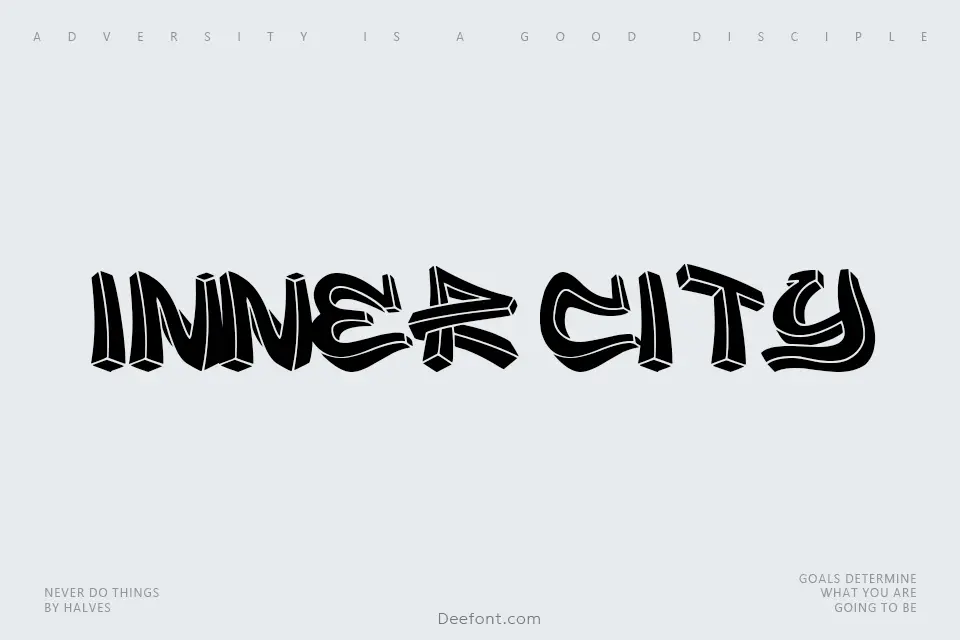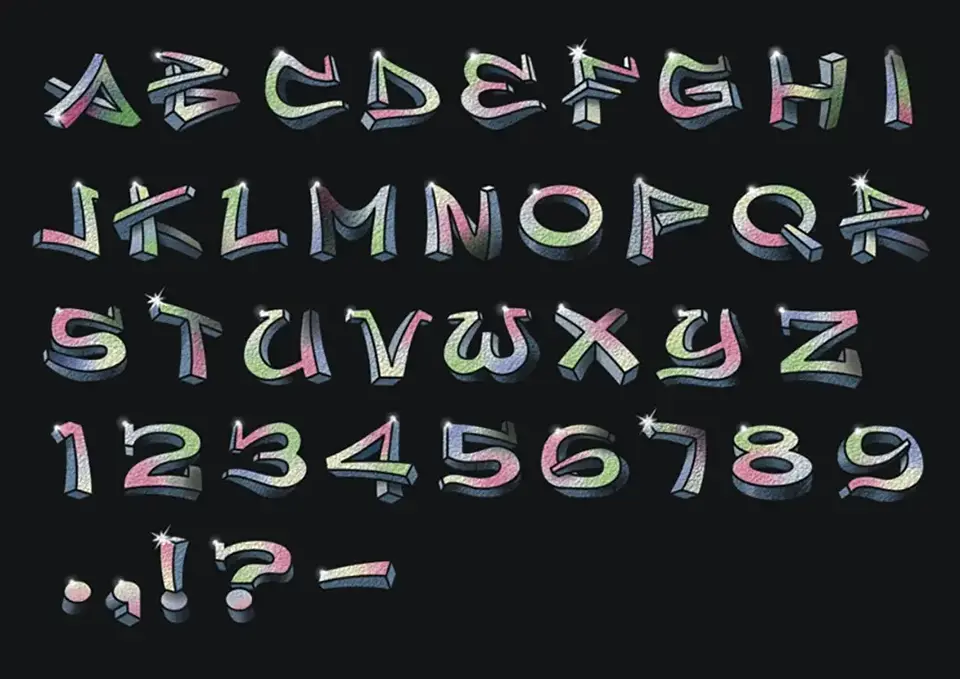
Inner City Font
The Inner City font is a bold, urban typeface featuring a striking 3D graffiti-inspired style with dynamic depth and movement. Characterized by sharp angles and thick strokes, this display font creates an edgy and modern appearance perfect for projects demanding visual impact. Originally designed in 2011, it showcases a compact, tightly-spaced structure that enhances its impactful presence. Ideal for street art designs, urban-themed posters, music album covers, and bold branding applications that require distinctive and contemporary aesthetics.